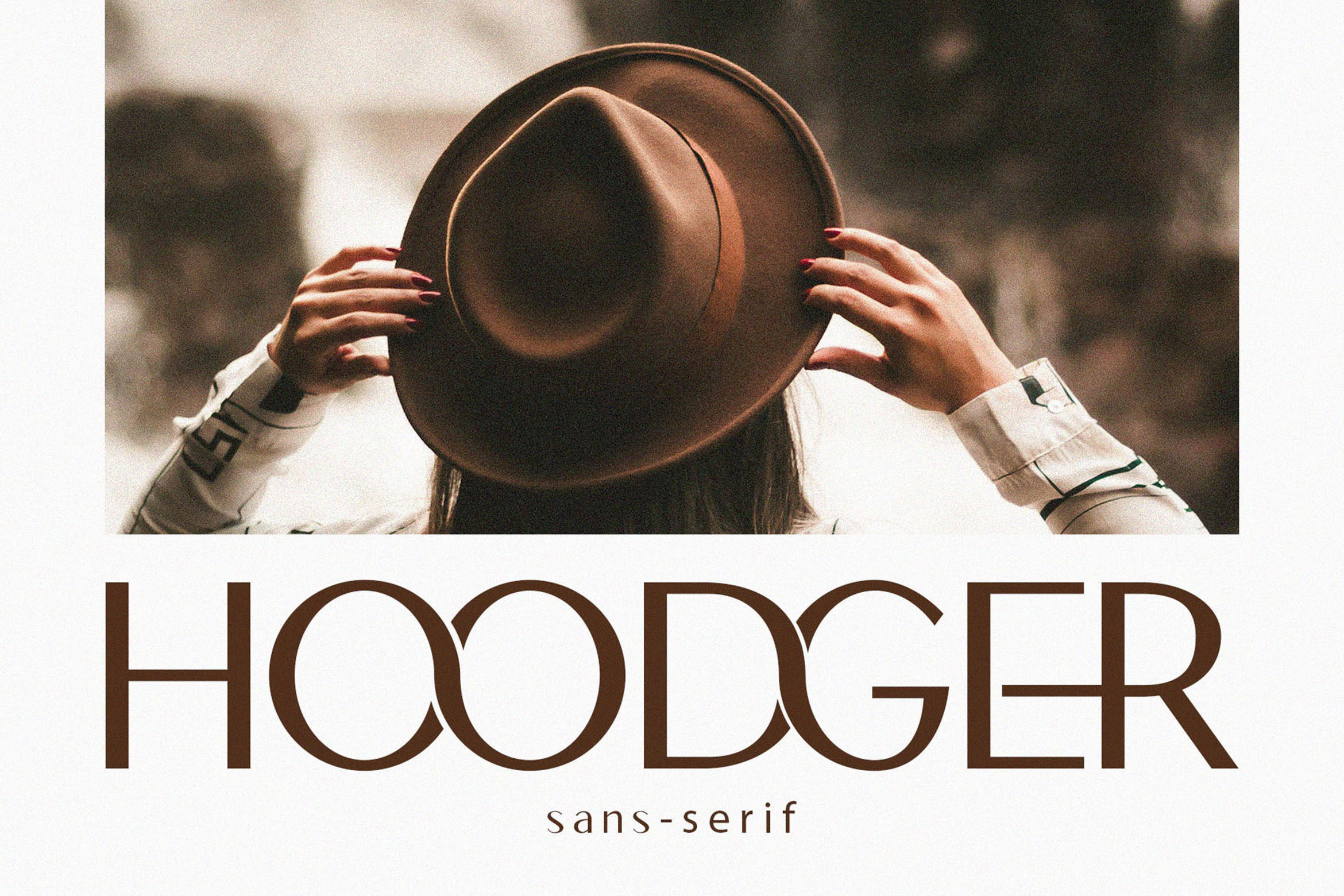
Hoodger Sans-Serif Typeface
Introducing 'Hoodger' Font:
Introducing Hoodger, a sleek and professional sans-serif font that seamlessly blends modernity with sophistication. With clean and minimalist letterforms showcasing sharp edges and balanced proportions, Hoodger exudes a sense of clarity and efficiency. Its sleek and sophisticated design makes it well-suited for a variety of applications, from branding to editorial design. Hoodger's professional and elegant style is guaranteed to leave a lasting impression.
Furthermore, this font is PUA encoded, ensuring easy access to all the glyphs and ligatures. Enhance your creative possibilities and streamline your design process with Hoodger's effortlessly accessible features.
Ideal for:
- Modern Designs
- Beauty and Fashion
- Visual Identity Projects
- Social Media Designs
- Advertising Campaigns
- Magazine
- Ready for Creative Expression
- Immaculately Crafted Letters